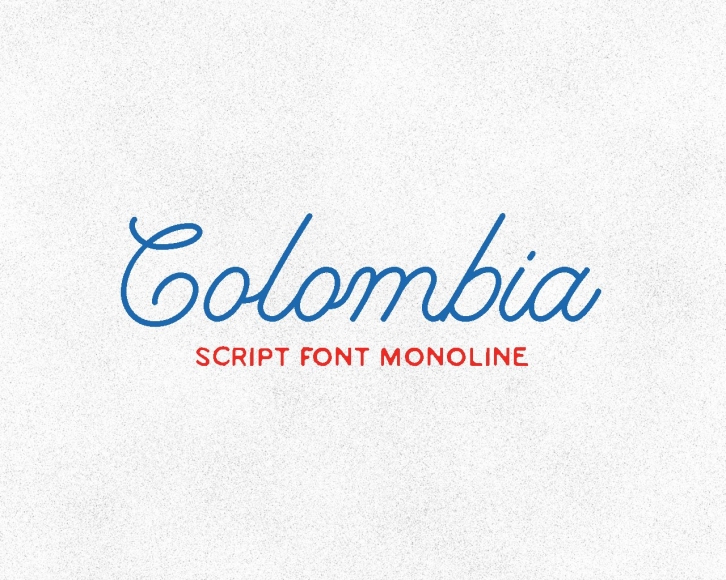
Colombia is a script font monoline typeface, with rounded edges and clean styles. It is perfect for logo designs, and small amounts of text. The font includes an uppercase, lowercase alphabet, numbers, common symbols, and ligature.
It can be used to create almost all types of design projects like print materials.
You want to make a business card or even a brand identity, craft design, adventure clothing, book title, cover book, or any purpose to make your art / design project look clean and feel simple? Colombia is the great idea.